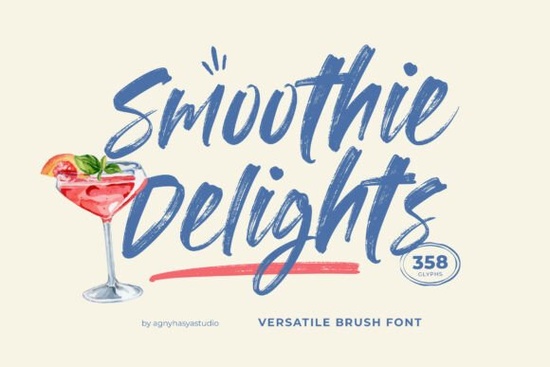
If you’ve ever wanted a font that feels like sunshine in a glass fresh, cheerful, and full of personality you’ll love Smoothie Delights Font. Designed with soft brushstrokes and a relaxed hand-lettered rhythm, it’s perfect for anyone creating food-related graphics, café branding, or lifestyle content that needs a friendly, approachable touch. Whether you're designing a summer smoothie menu, packaging for artisanal treats, or social media posts for your small business, this font adds warmth without sacrificing clarity.
Unlike overly stylized script fonts that can be hard to read at smaller sizes, Smoothie Delights maintains clean lines while keeping its organic texture. That balance makes it especially useful for print-on-demand sellers and crafters who need legibility across mugs, tote bags, and labels without losing that handmade charm.
What makes Smoothie Delights stand out from other brush fonts?
Many brush-style typefaces lean too heavily into flourish or inconsistency, which can limit their use. Smoothie Delights avoids those pitfalls by offering:
- A natural, flowing baseline that mimics real handwriting but stays tidy enough for professional use
- Extensive glyph support, including alternates and ligatures, so your text never looks repetitive
- Multilingual character sets, making it viable for international projects or diverse audiences
This versatility is why it pairs well not just with food themes, but also wellness brands, boutique shops, and even personal journaling projects. If you like the cozy authenticity of Wonderful Handmade or the elegant simplicity of Signature Font, you’ll find Smoothie Delights fits right into that same creative toolkit just with a brighter, more playful energy.
Who should use this font?
Smoothie Delights shines in hands-on creative work. Here’s who benefits most:
- Café owners designing seasonal menus or chalkboard signs
- Etsy sellers creating printable recipe cards, stickers, or digital planners
- Small food brands developing packaging for jams, baked goods, or cold-pressed juices
- Social media managers crafting Instagram quotes or Reels overlays with a human feel
- Hobbyist designers experimenting with typography in Canva, Photoshop, or Procreate
How does it compare to similar script fonts?
While fonts like Your Dreams Font lean into dreamy elegance, Smoothie Delights is grounded in everyday joy it’s less “fancy invitation” and more “weekend farmers market.” It doesn’t try to be overly artistic; instead, it prioritizes usability with just enough character to feel special.
Tips for getting the most out of Smoothie Delights
To keep your designs looking polished:
- Use generous spacing. Brush fonts breathe better with extra letter-spacing especially in headlines.
- Pair it with a clean sans-serif. Try combining it with neutral fonts like Montserrat or Lato for contrast.
- Avoid all-caps. This font is designed for lowercase and mixed-case use; uppercase can lose its fluidity.
- Test print samples. If using for physical products, always print a test sheet to check ink spread and readability.
And remember: because it includes OpenType features, make sure your design software supports stylistic alternates to unlock its full range of expression.
Whether you’re refreshing your brand’s visual voice or adding a splash of cheer to a weekend craft project, Smoothie Delights offers an inviting blend of ease and expressiveness no overthinking required.